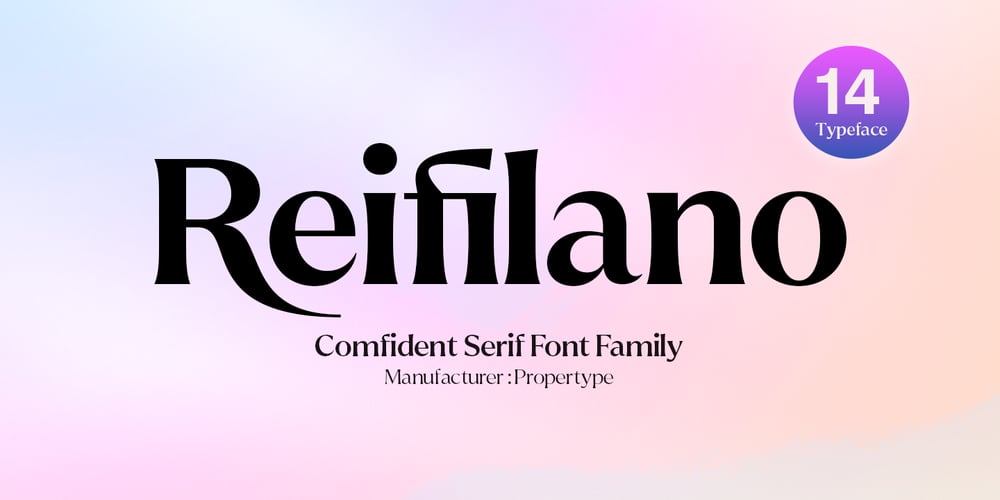
Reifilano Font Family was designed by Nadia Auliana and published by Propertype. Reifilano contains 14 styles and family package options. Reifilano Serif confident is an elegant, modern, and contrasting serif font family. It includes upright and oblique styles, each having seven weights from thin to thick. This is a versatile font perfect for any project, contrasting, modern and easy to read. With it, you can create logos, use them in advertising, packaging, book and magazine covers, titles, descriptions and much more.Download Reifilano for your next project today.What’s included?Uppercase CharactersLowercase CharactersNumbers and LigaturesReifilano Family features multilingual Support for multiple languages.